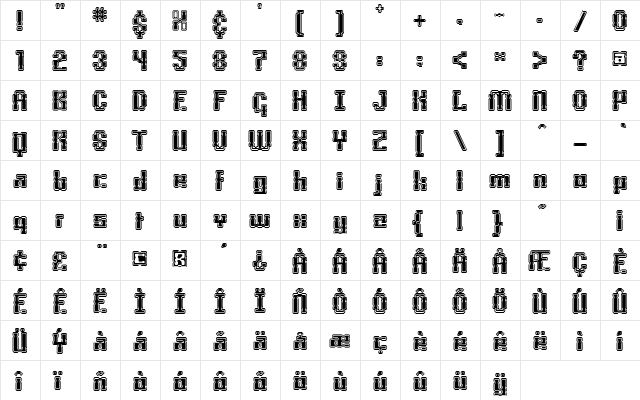
Boxonoxo Outline
Design Context for Boxonoxo Typeface
Boxonoxo is built around its visual character rather than neutral utility — its distinctive forms are designed to make an impression at display sizes.
Font Pairing: Pair with a clean neutral sans-serif for body copy to let Boxonoxo's character lead without overwhelming the composition.
Pro Tip: Treat Boxonoxo as the centrepiece of your typographic hierarchy. One strong heading set in a decorative face can carry an entire layout.